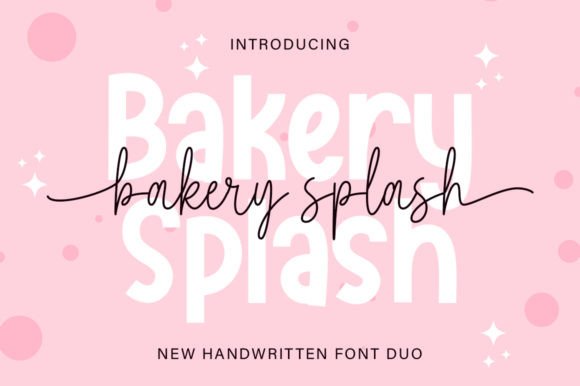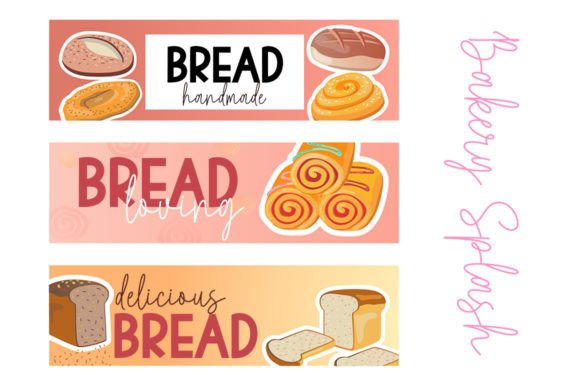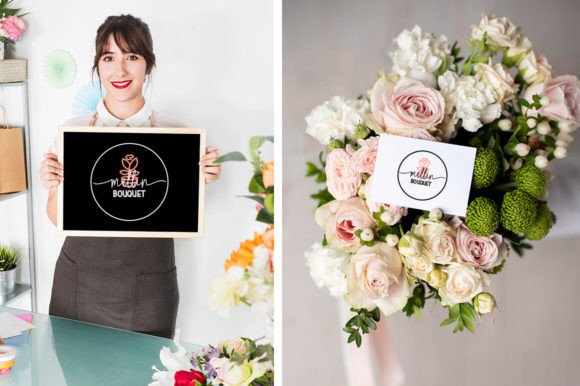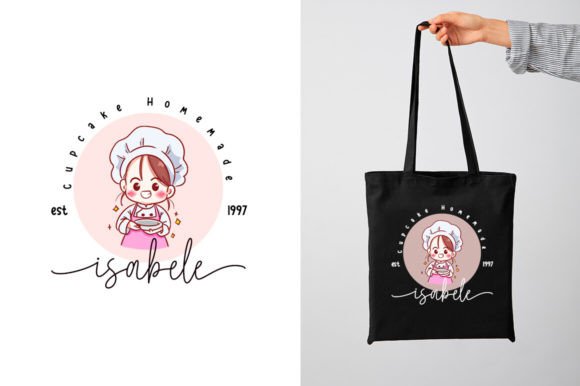
Bakery Splash Duo Font
About the Bakery Splash Duo Font
Crafted with precision, the Bakery Splash Duo Font is ready to bring your ideas to life. Bakery Splash Duo is a stylish and delicate duo font (sans serif and script) suitable for a wide spectrum of applications. From greeting cards to headlines, this font will guarantee a romantic touch to each of your creations! Bakery Splash Duo is PUA encoded which means you can access all of the glyphs and ligatures with ease.
This duo font excels in projects requiring a touch of delicate elegance. It’s ideal for branding materials like logos and short taglines, as well as headlines, short quotes, and packaging designs where a romantic or whimsical feel is desired. However, its script component isn’t suitable for extended body text or UI elements; legibility suffers in smaller sizes or lengthy passages.
Bakery Splash Duo’s personality is best described as charming and sophisticated. Consider pairing the sans-serif element with a clean, geometric sans-serif like Montserrat for a balanced contrast, or with a classic serif font such as Playfair Display for a more traditional yet stylish feel. The script portion pairs well with a simple, modern sans-serif like Lato for a touch of understated elegance.
Avoid using it in projects requiring high readability at small sizes, or contexts demanding a serious or minimalist aesthetic. Its delicate nature is best showcased in branding for businesses focusing on food, fashion, or events with a romantic or artistic flair.
Bakery Splash Duo Font Usage Examples
Bakery Splash Duo Font Example